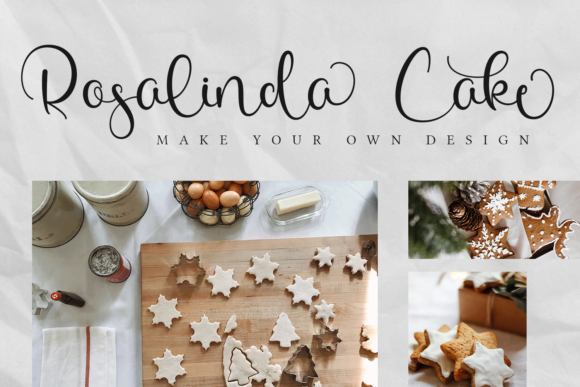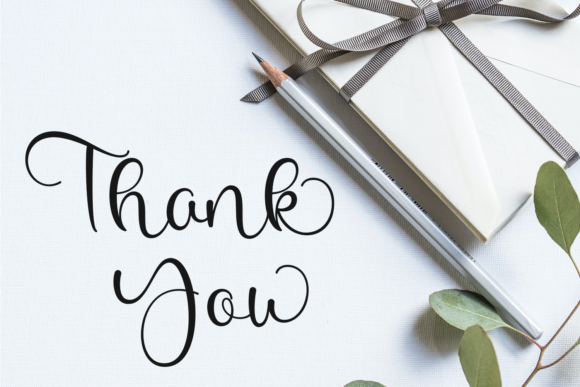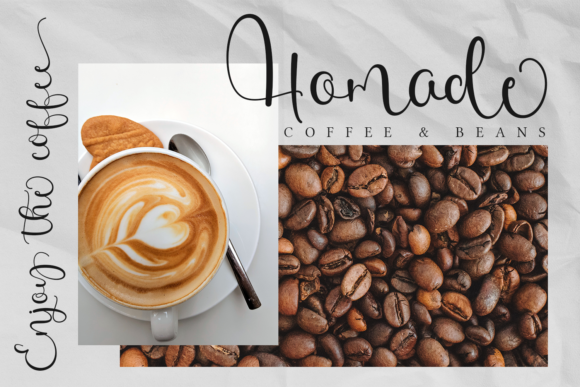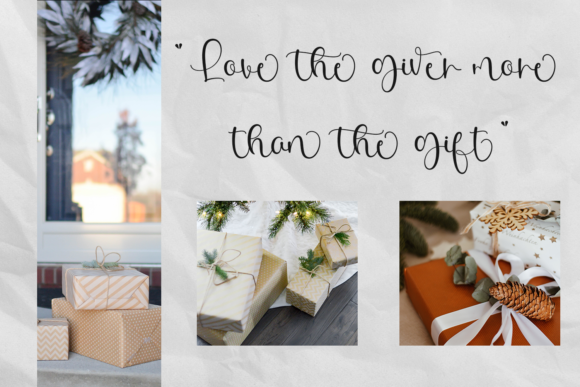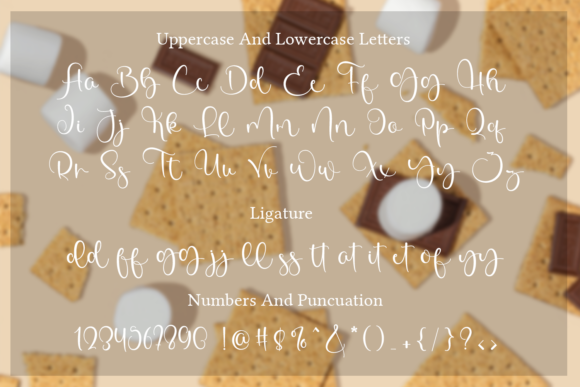
Biskuit Font: Elevate Your Designs with Elegance and Sophistication
In the world of typography, a font can make all the difference in the aesthetic and appeal of a design. For designers and crafters looking to add a touch of elegance and sophistication to their creations, the Biskuit Font is an exceptional choice. This stylish and incredibly elegant script font is designed to transform your designs, offering a unique blend of beauty and functionality.
What Makes Biskuit Font Stand Out?
Biskuit is not just another script font; it’s a design statement. Its elegant strokes and beautiful swashes are crafted to add a luxurious feel to any project. Whether you’re working on a branding project, a wedding invitation, a packaging design, or a digital artwork, Biskuit Font can elevate your design to new heights.
One of the key features that make Biskuit Font incredibly user-friendly is its PUA (Private Use Area) encoding. This means that accessing all the glyphs and swashes is straightforward, allowing designers to have fun and be creative without the hassle of complicated font management. With Biskuit, you can easily incorporate a wide range of design elements into your work, making it truly stand out.
Key Features of Biskuit Font
- Elegant Script Design: Biskuit boasts a stylish and elegant script design that can add a touch of sophistication to any project.
- PUA Encoded: Enjoy easy access to all glyphs and swashes, making it simple to customize your designs.
- Versatile: Suitable for a wide range of projects, from branding and advertising to packaging and digital art.
- User-Friendly: Thanks to its PUA encoding, using Biskuit Font is hassle-free, allowing you to focus on your creative process.
- Experiment with Swashes: Biskuit’s swashes can add a dynamic touch to your text. Feel free to experiment with different combinations to find the perfect look for your design.
- Mix and Match: Don’t be afraid to mix and match different glyphs to create a unique look that reflects your brand or design theme.
- Pay Attention to Kerning: As with any font, paying attention to kerning can make a significant difference in the readability and overall appearance of your text.
Who Can Benefit from Biskuit Font?
Biskuit Font is an excellent addition to the toolkit of various professionals and hobbyists, including:
- Graphic Designers: Looking for elegant and versatile fonts for client projects.
- Wedding Planners and Stationery Designers: Seeking sophisticated fonts for invitations and wedding-related designs.
- Digital Artists: Wanting to add a touch of elegance to their digital artworks.
- Crafters: Creating handmade cards, scrapbooking, or other crafts that require beautiful typography.
| Font Name | Biskuit Font |
| Author | Guritatype |
Biskuit Font is more than just a script font; it’s a design element that can transform your creations with its elegance and sophistication. Its PUA encoding makes it easy to use, and its versatility ensures it can be applied to a wide range of projects. Whether you’re a professional designer or a hobbyist, Biskuit Font is a valuable resource that can help you achieve stunning results. So, why wait? Add Biskuit to your font collection today and let yourself be amazed by the outcomes you can generate.